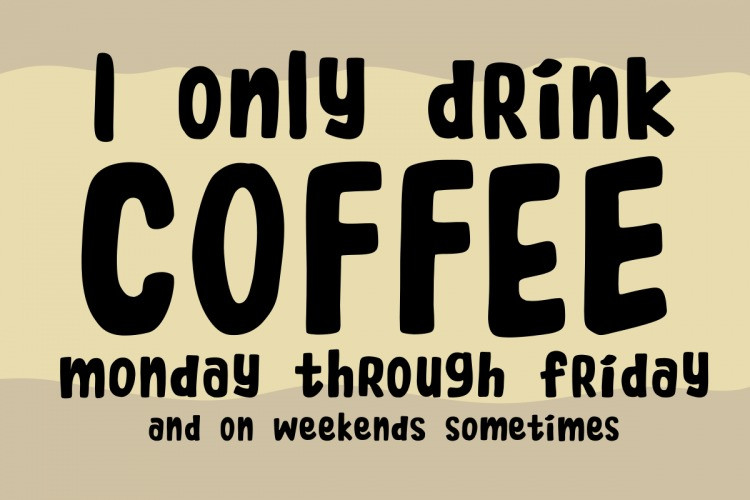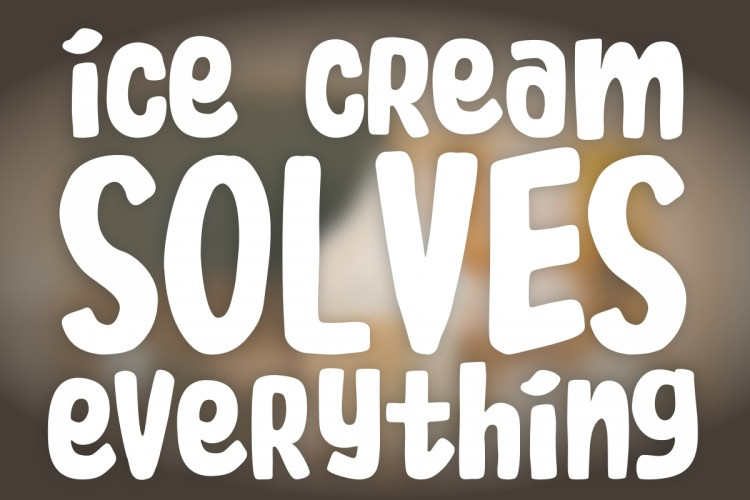
Fresh Steak Display Font
Fresh Steak is a fun and cool display font. Whether you use it for cartoon-related designs, children’s games, or just any creation that requires a playful touch, this font is the perfect choice for your designs!